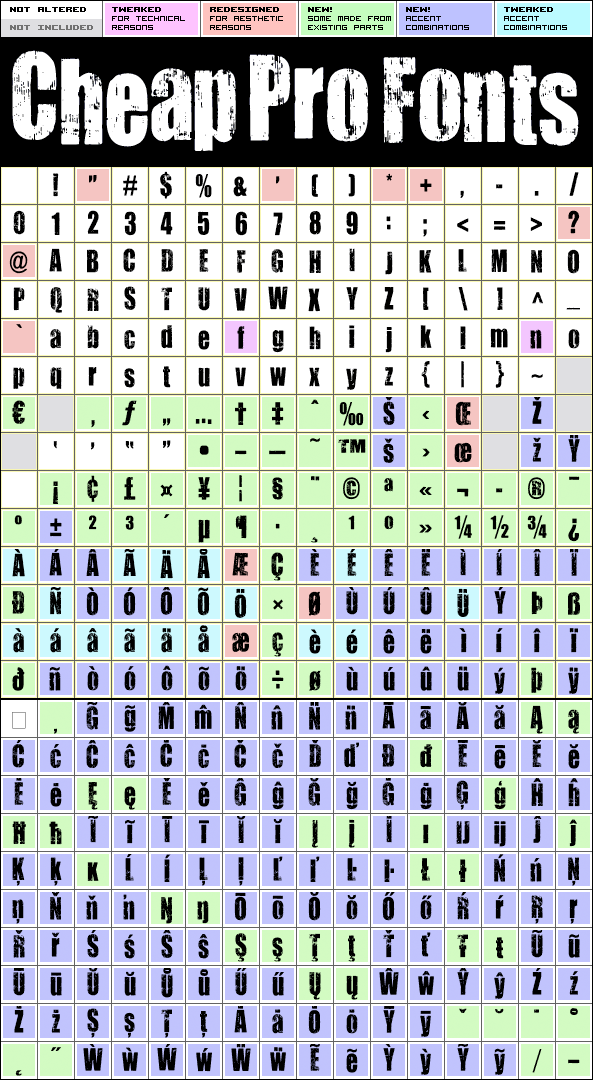
You Are Loved Pro
You Are Loved Pro by Kimberly Geswein
Kimberly Geswein
(124 in original)
100 class kernpairs
= 2480 kerning pairs
(none in original)
Rough. Torn. Shredded. Worn. Weary. Gritty. Uneven. Irregular. Ripped. Scraped. Cracked. Eroded. Deteriorated. And now ready to present your powerful message in 65 languages! :)
You Are Loved Pro is a professionally reworked font that contains an extended character set for setting text in 65 languages requiring more than the basic A-Z!